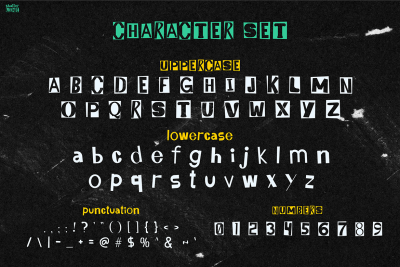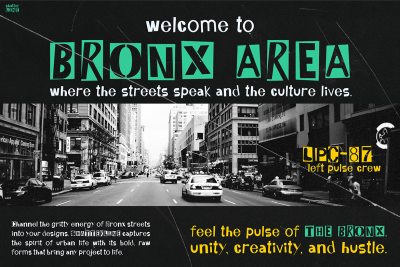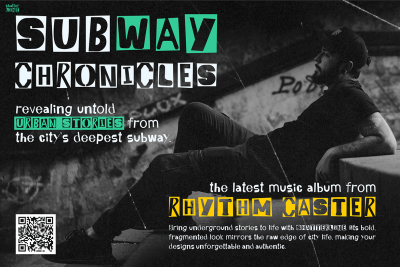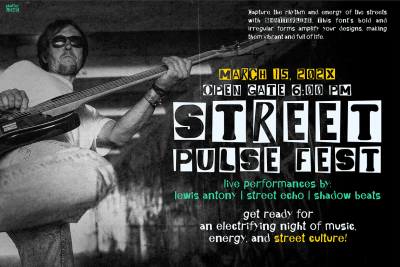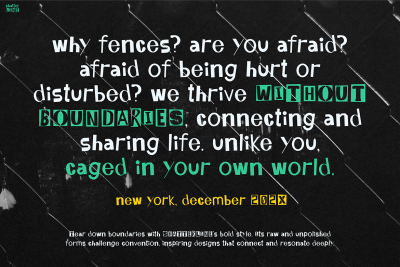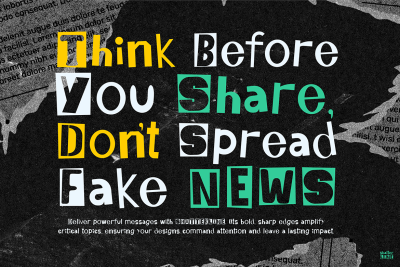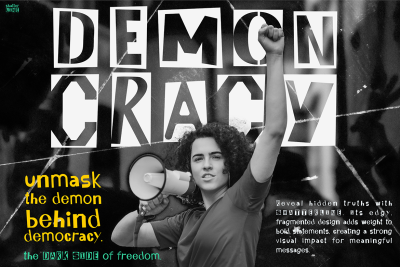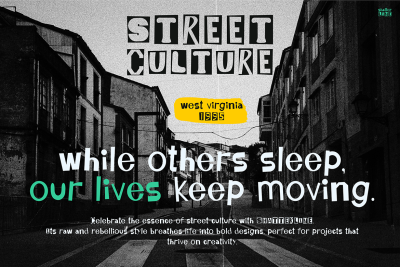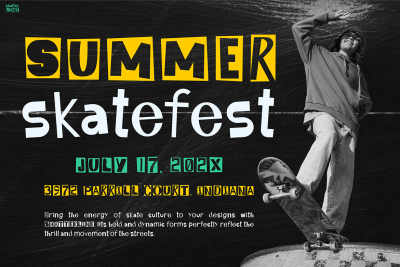
SHATTERLINE is a bold and dynamic music-inspired font. It combines a distressed, edgy look with vibrant lettering, creating an aesthetic that is both eye-catching and powerful. As a result, this font exudes energy and rebellion, making it perfect for projects that need a strong visual impact. With its torn edges, uneven letter spacing, and mixed uppercase typography, it evokes the spirit of underground music scenes and punk rock culture. Moreover, its newspaper-ripped background and contrasting colors (green and yellow on black) further enhance its raw and creative feel.
In addition, SHATTERLINE is versatile because it blends modern design trends with a retro grunge aesthetic. It effectively captures the essence of nonconformity, turning any text into a visual focal point. Furthermore, the rough, cut-out style draws inspiration from classic ransom-note designs. Consequently, this font is ideal for making bold statements and grabbing attention in any medium. Its distinct design ensures that your project stands out, whether in print or digital formats.
Music Font SHATTERLINE Who is it for?
SHATTERLINE is ideal for designers, musicians, and creatives. Specifically, it works well for album covers, event flyers, band merchandise, and music festival branding. Additionally, it suits social media graphics, urban-themed designs, and streetwear labels looking for an edgy vibe.
For brands targeting young, trend-conscious audiences, Music Font SHATTERLINE is especially effective. Its rebellious tone fits perfectly with alternative music, indie rock, and hip-hop culture. Likewise, it is an excellent choice for gaming and esports platforms, as its dynamic style reflects the energy of these industries.
Furthermore, SHATTERLINE works well for editorial projects. Zines, blogs, and magazines focusing on counterculture or underground movements can use this font to enhance their visual storytelling. Whether you are a seasoned designer or just starting out, SHATTERLINE offers the perfect balance of creativity and impact, making it a go-to choice for bold, energetic designs.